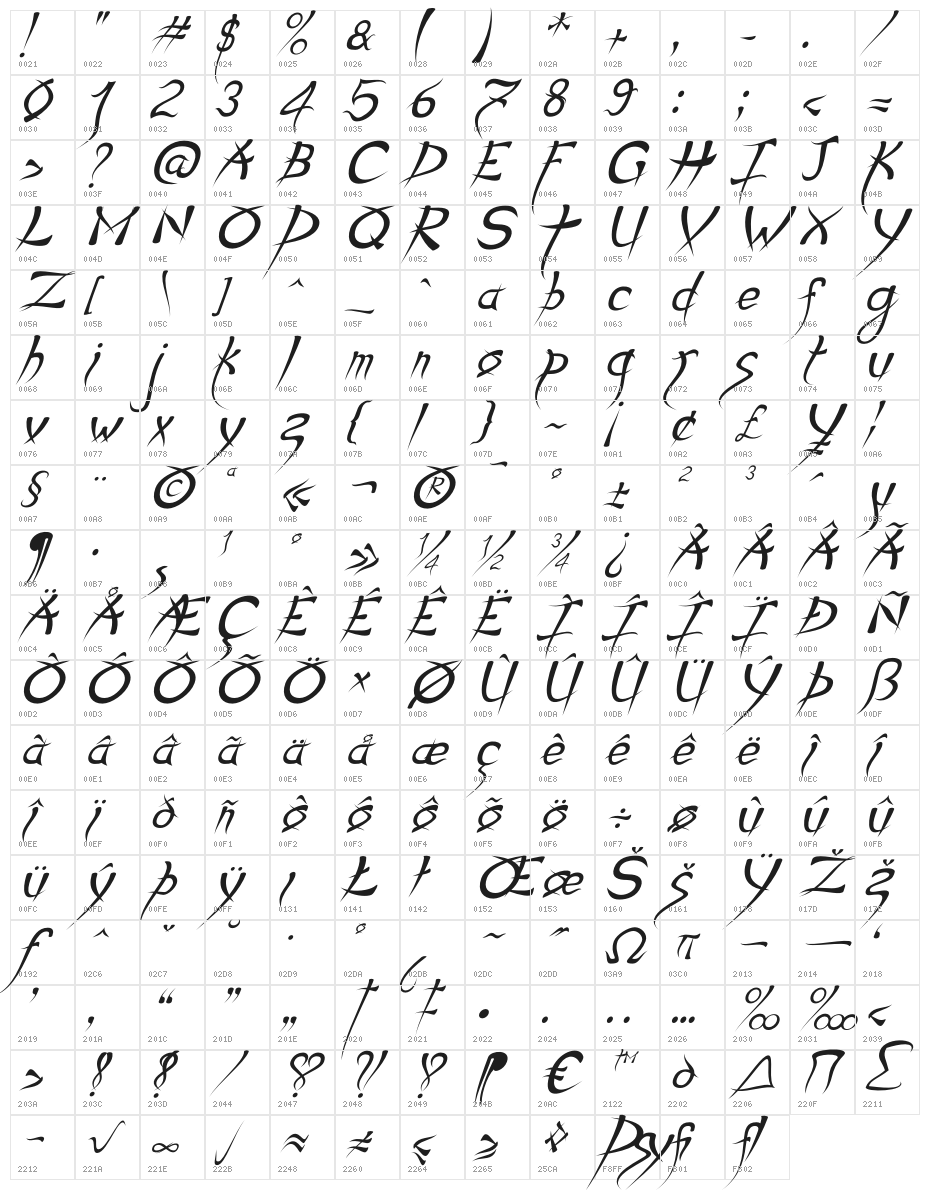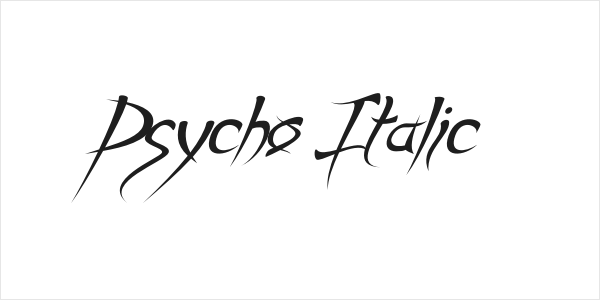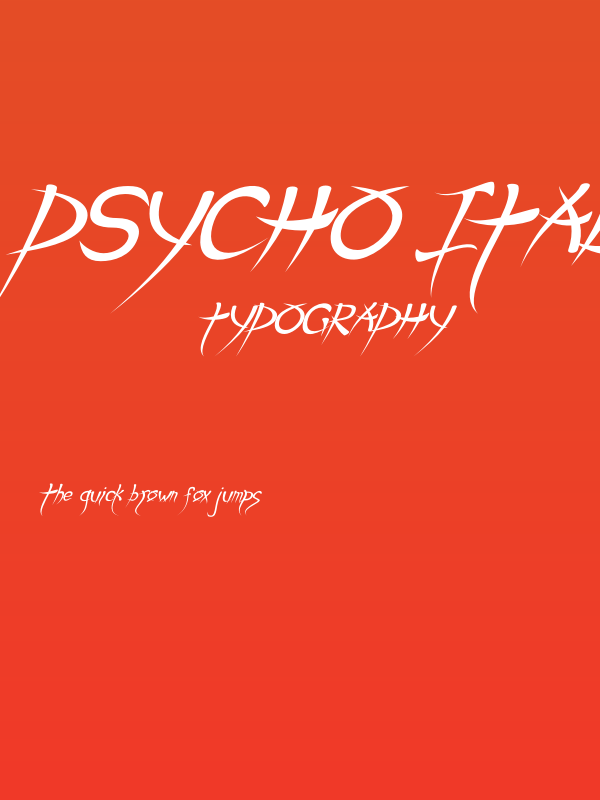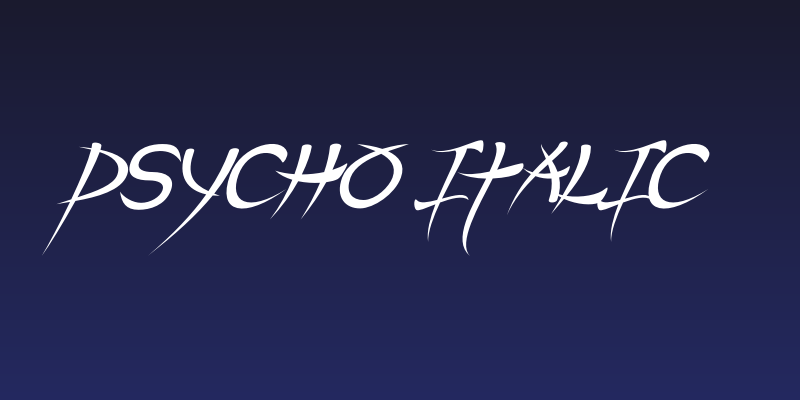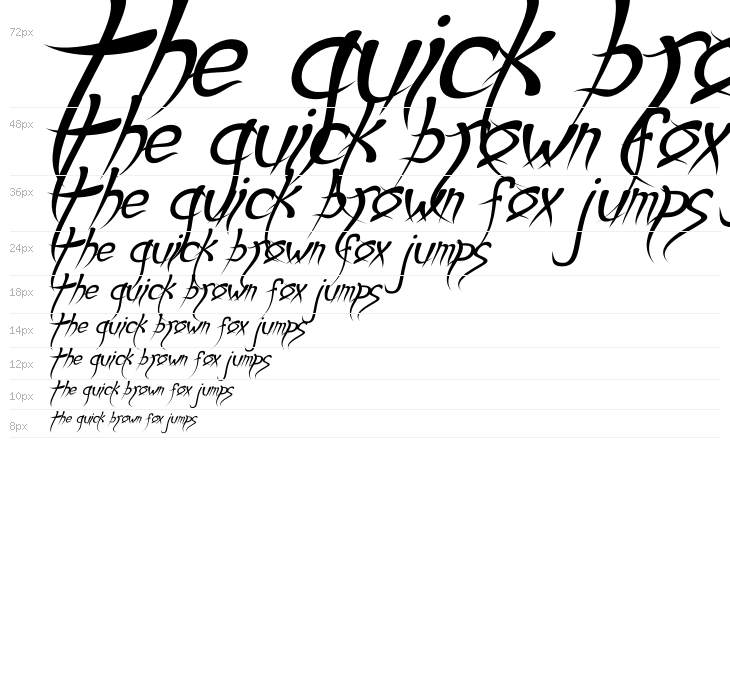
Psycho Italic Font
Psycho Italic Description
This font exhibits a dynamic and edgy style, characterized by sharp, angular strokes and a fluid, italicized form. The letters are highly stylized, with exaggerated curves and pointed terminals, giving it a sense of movement and intensity. The uppercase and lowercase letters maintain a consistent slant, enhancing the italic nature of the font. The numerals and special characters follow the same design principles, ensuring uniformity across all glyphs. The overall appearance is bold and expressive, making it suitable for projects that require a strong visual impact.
Overall StyleModern, Decorative
Proposed ProjectsIdeal for album covers, movie posters, video game titles, or any project needing a dramatic and intense typeface.